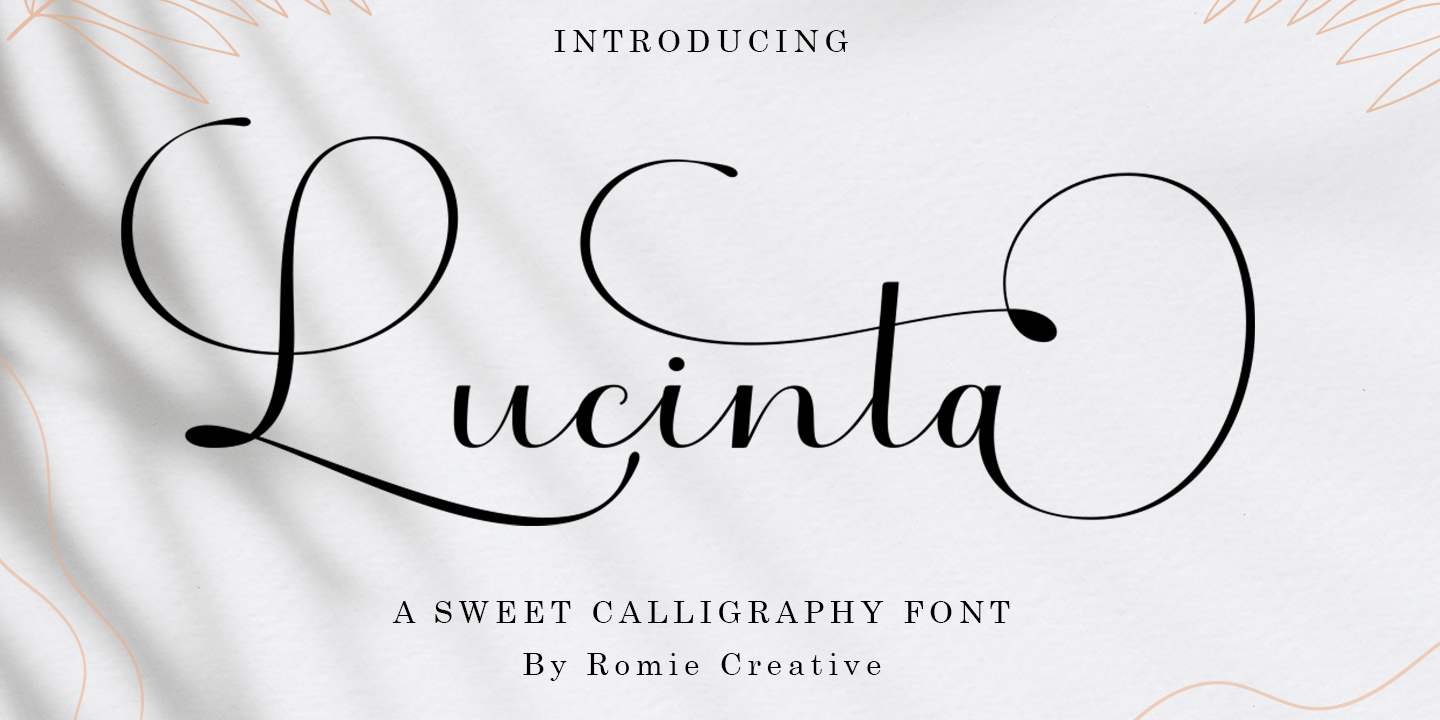
If you're looking for a beautiful, elegant script typeface with a romantic and luxurious feel, Lucinta Font Free Download is the perfect choice for your creative projects. This stunning font features flowing, graceful letterforms with smooth curves and delicate details, making it ideal for wedding invitations, logos, branding, product packaging, social media graphics, and greeting cards. Its sophisticated style adds a timeless, classy touch to any design.
Lucinta Font offers excellent readability while maintaining its artistic, handcrafted charm. It includes ligatures, alternates, and multilingual support, giving designers flexibility to create unique and personalized typography. Whether you're crafting a bridal logo, designing an upscale product label, or creating elegant marketing materials, this font delivers beauty and versatility in every letter.